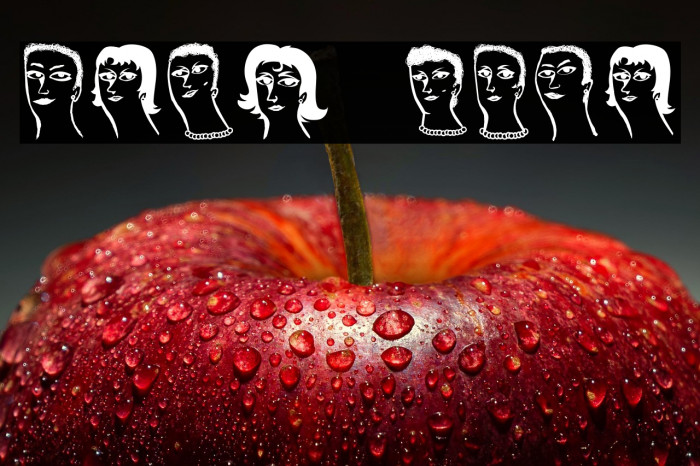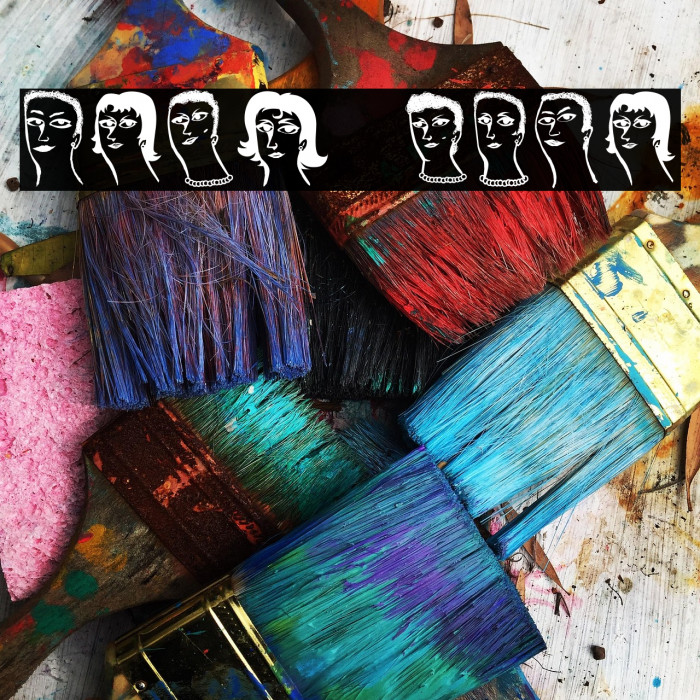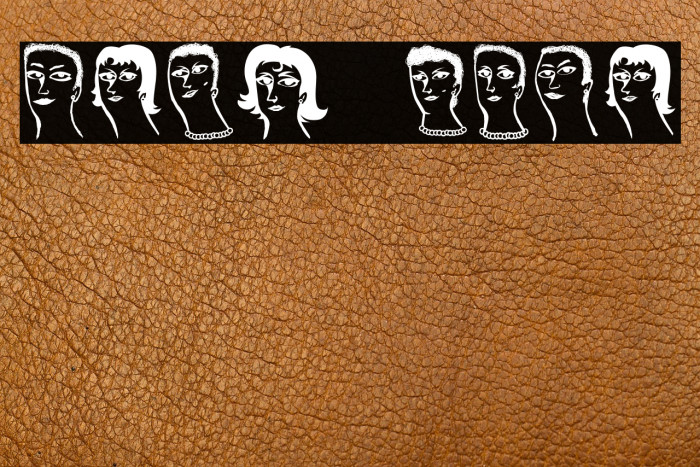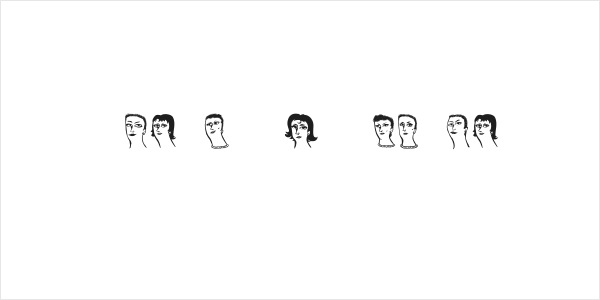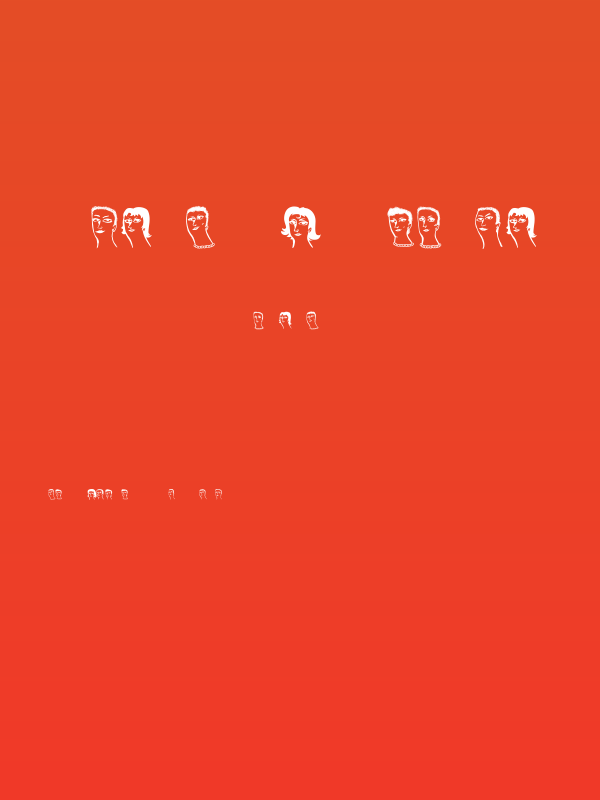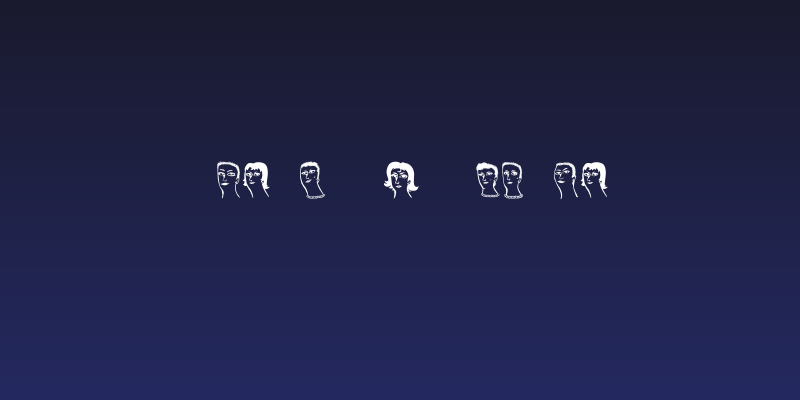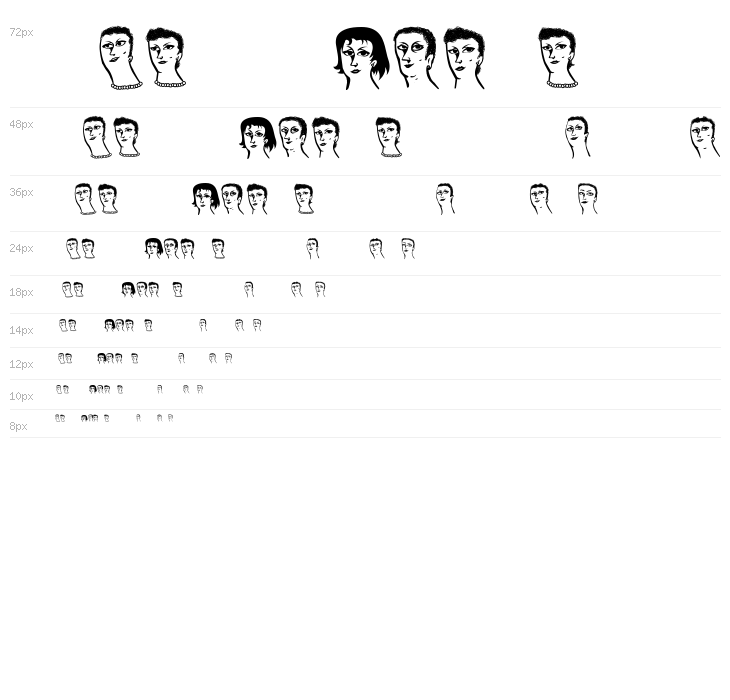
Womanhood Regular Font
Womanhood Regular Description
A decorative font composed of illustrated female faces in a hand-drawn, expressive style, with each character represented by a unique portrait. The illustrations are bold, with strong black lines and varied facial features and hairstyles, giving each glyph a distinct personality.
| Overall Style | Decorative, Artistic, Hand-drawn |
| Use Case | Display, Posters, Artistic projects, Editorial headlines |
| Proposed Projects | Art posters, zines, editorial illustrations, album covers, feminist projects, creative branding. |